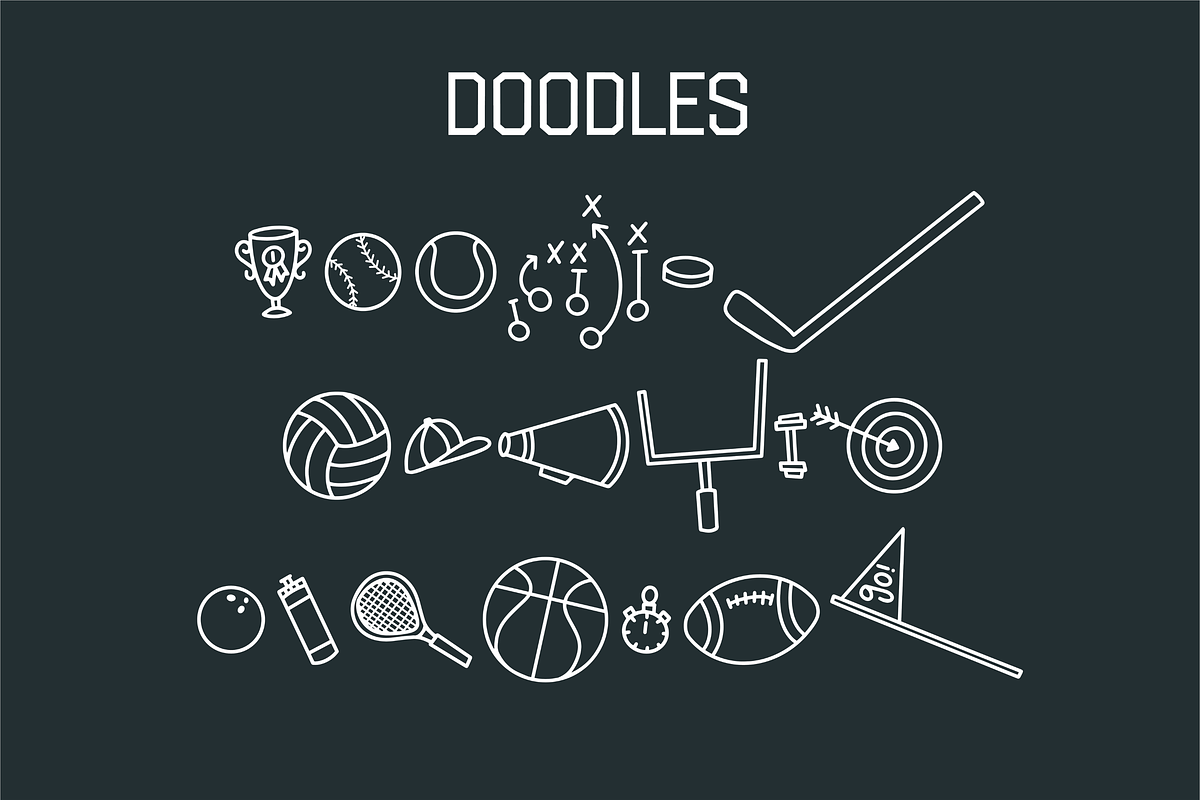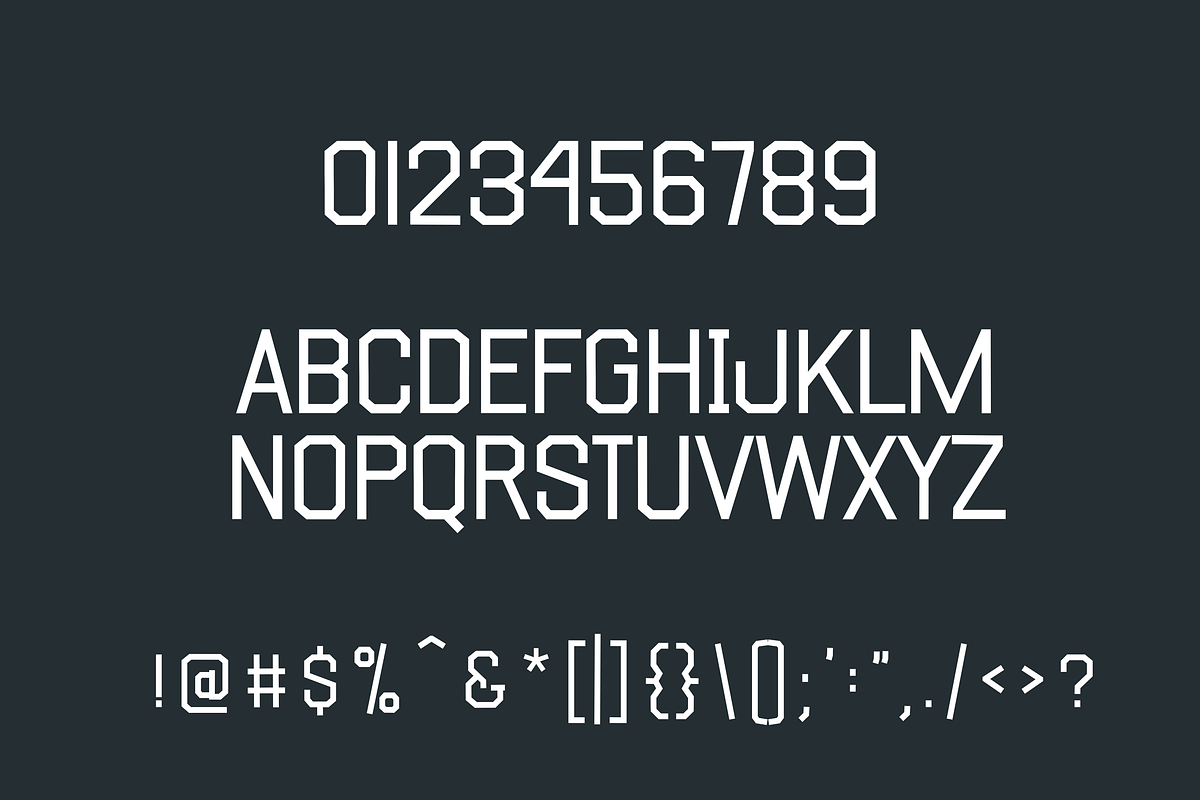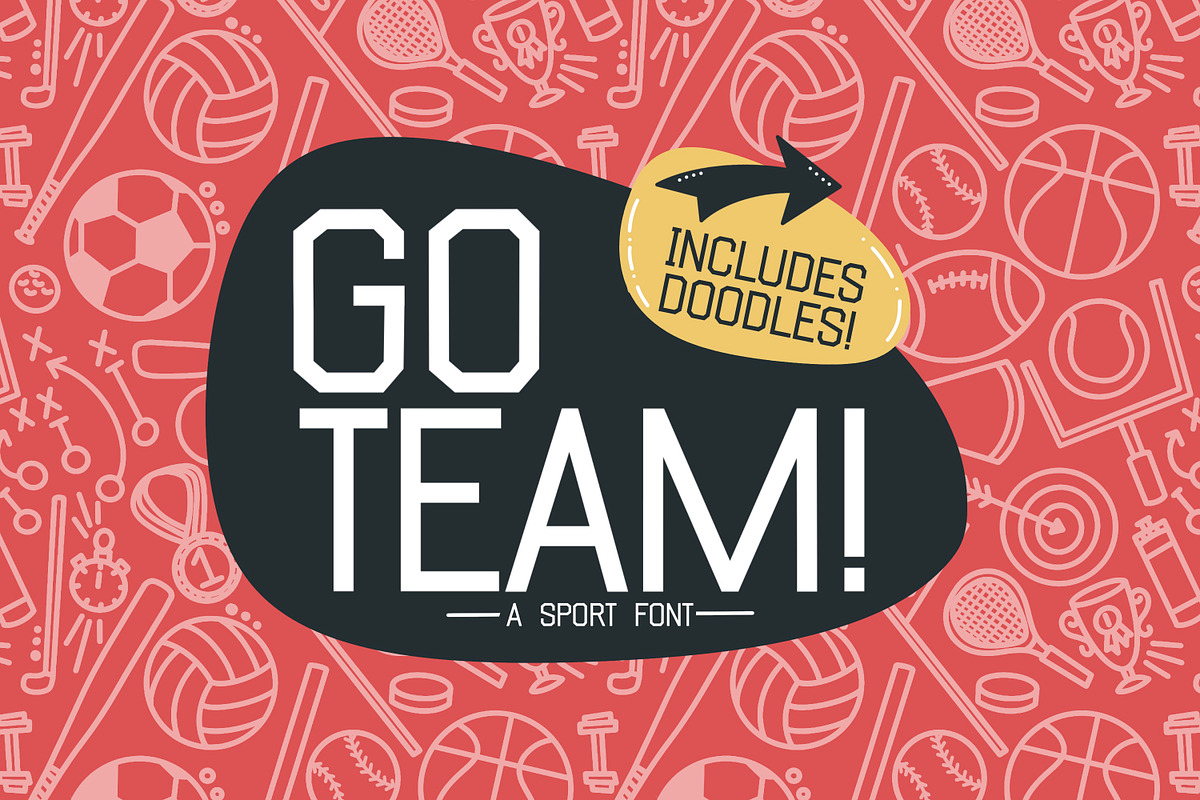
Go Team with Doodles
Go Team Font features a bold, thin sans serif style, ideal for creating a modern look in athletic designs. Its special doodles will add the perfect touch to any sports-themed project.